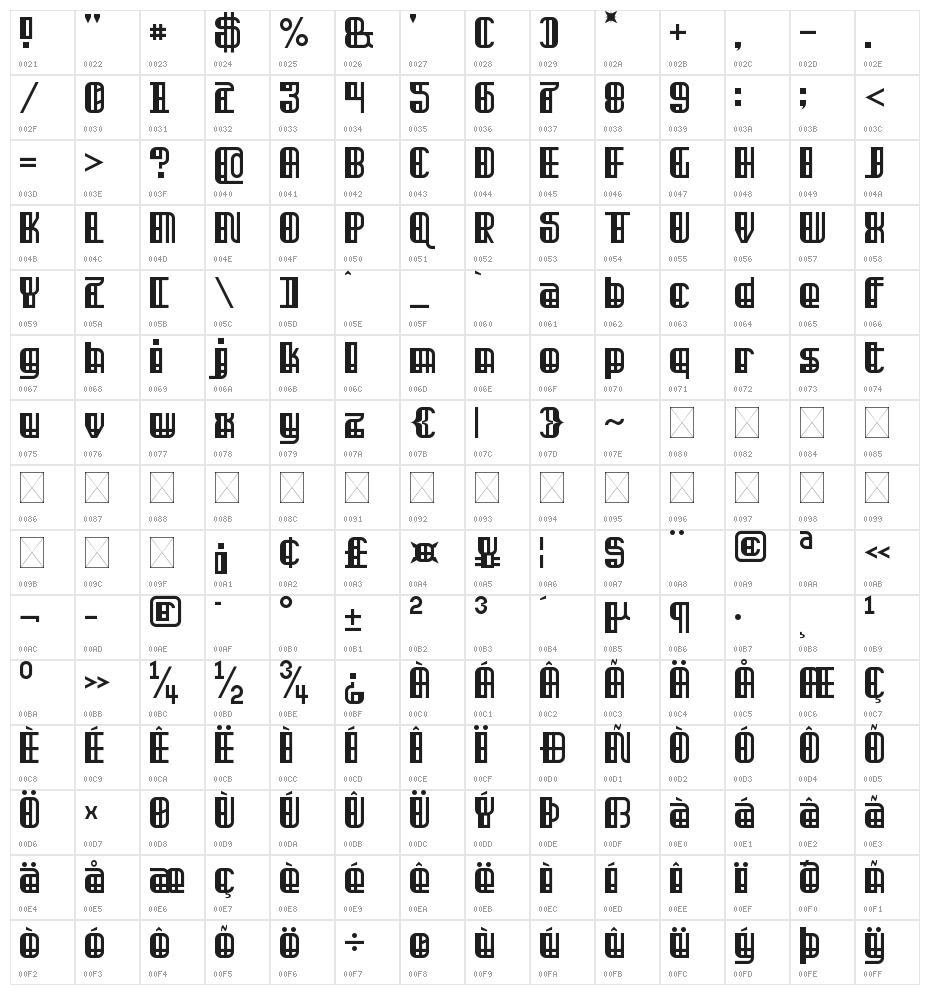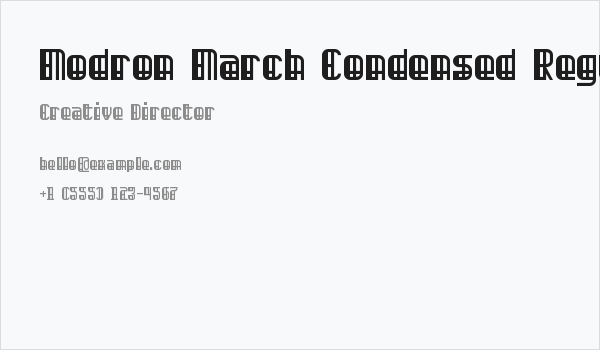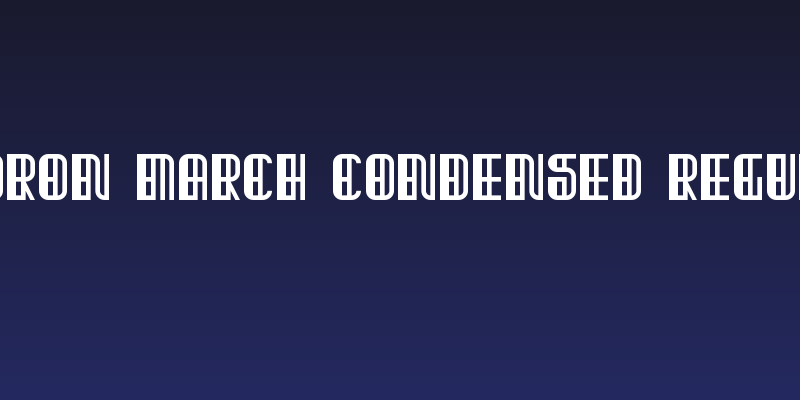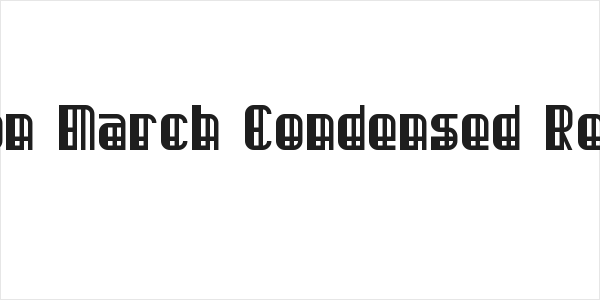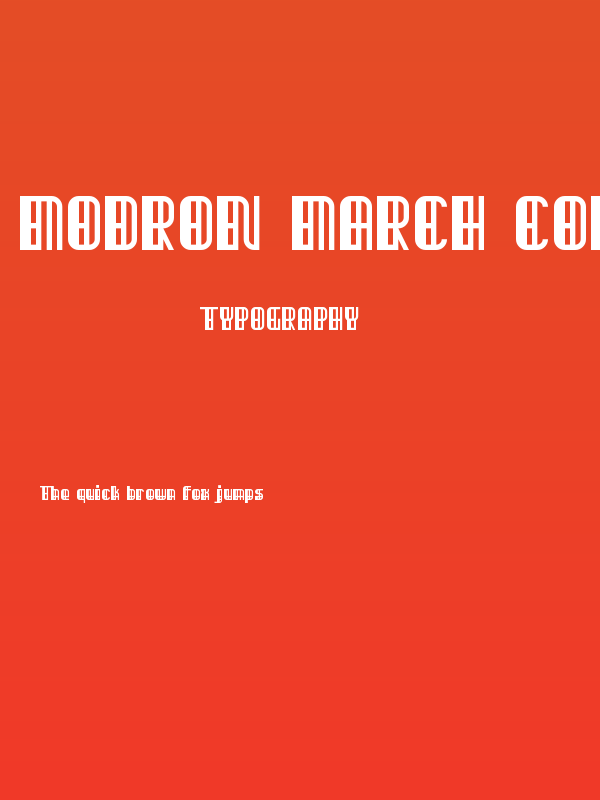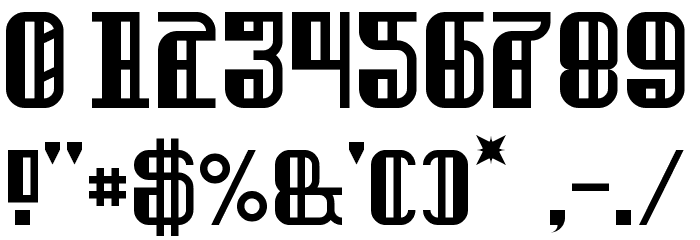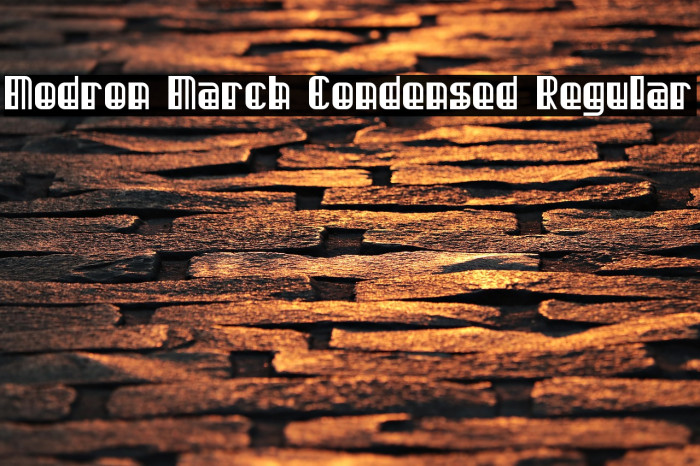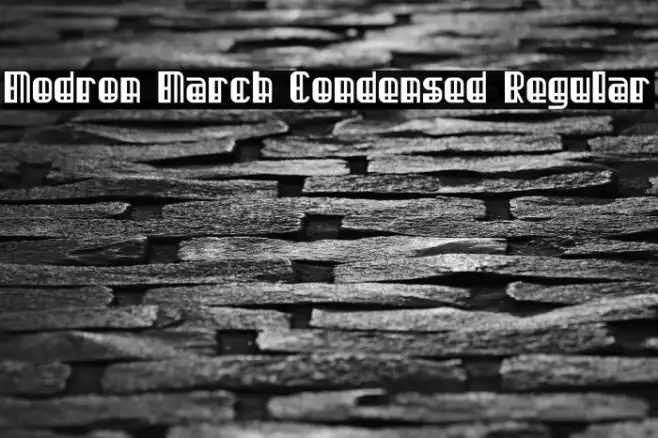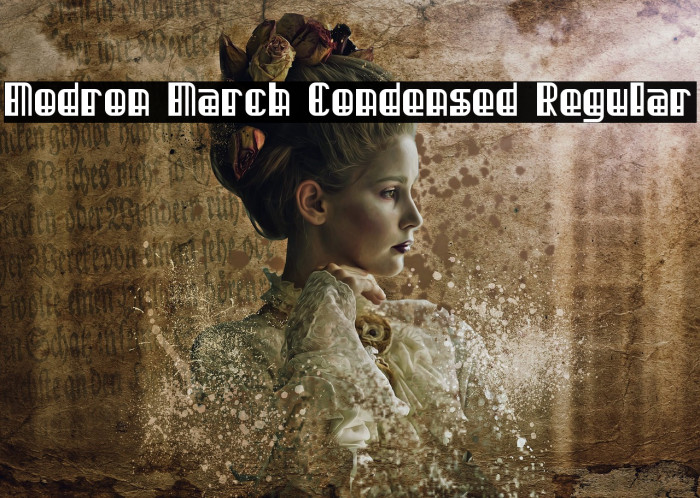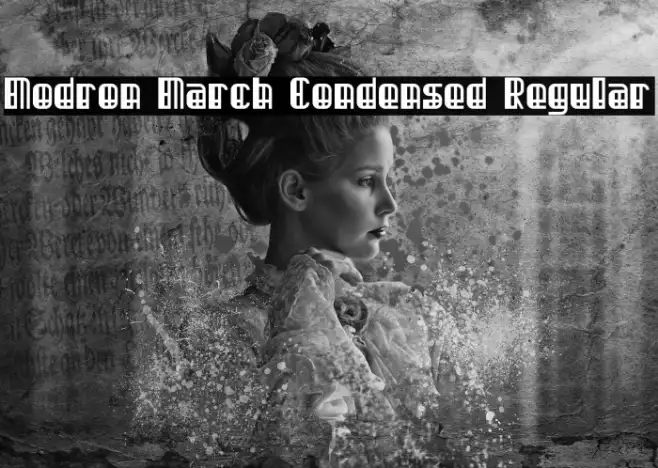
Modron March Condensed Regular Font
Modron March Condensed Regular Description
This font features a bold and condensed style with a modern, geometric design. The characters are constructed with a combination of thick vertical lines and thinner horizontal elements, creating a unique and striking appearance. The uppercase and lowercase letters maintain a consistent height, contributing to its uniform look. The numerals and special characters follow the same design principles, ensuring a cohesive visual identity. The font's distinct style makes it suitable for attention-grabbing headlines and display purposes, where a strong visual impact is desired.
| Proposed Projects | Ideal for posters, branding, logos, and any project requiring a bold, modern aesthetic. |